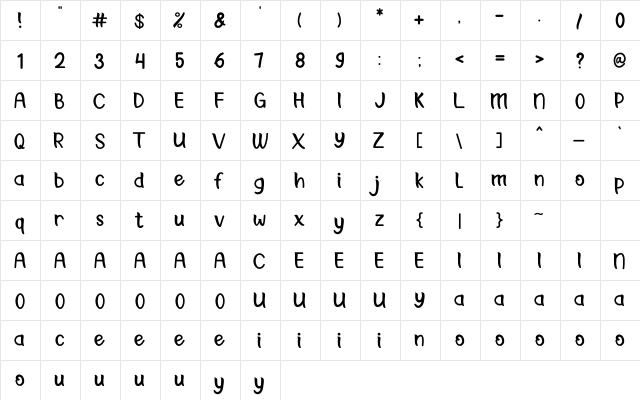
Moments Kids Regular
| Foundry | andriyanto adi utomo |
| Designer | andriyanto adi utomo |
Design Context for Moments Kids Typeface
Moments Kids trades formality for fun, with bouncy, characterful letterforms that bring warmth and energy to any project.
Great for children's books, toy packaging, family event branding, and casual consumer-facing design.
Font Pairing: Pairs well with a rounded or humanist sans for body copy, maintaining the friendly tone without relying on Moments Kids to carry extended reading.
Pro Tip: Avoid using Moments Kids for long passages of text — it works best for headlines, labels, and short calls to action.